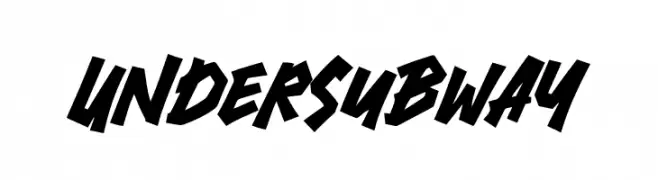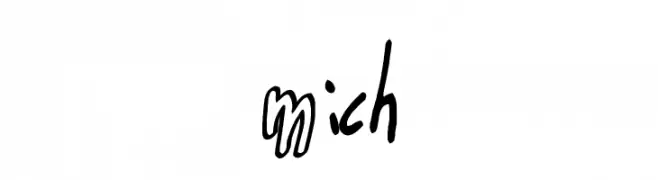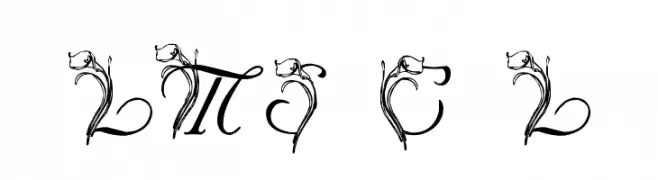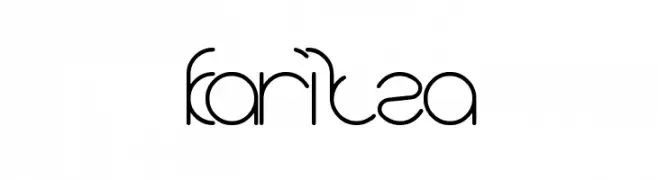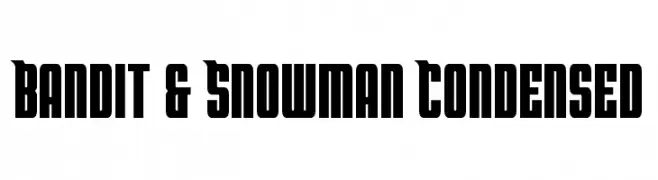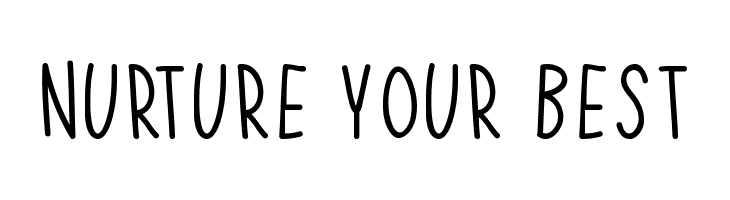
A bold, graffiti-inspired font with sharp, angular edges and a dynamic slant.
A decorative script font with elegant swirls and loops.
A bold, pixelated font inspired by classic video game graphics.
A playful, casual handwritten font with irregular, organic letterforms.
A decorative font with floral calla lily motifs integrated into each character.
A sleek, modern italic font with thin, elongated letterforms and a geometric style.
A modern, fluid font with artistic loops and curves.
A playful, rounded font with a hand-drawn, whimsical style.
A bold, condensed font with strong geometric shapes and a modern look.
A bold, italic font with sharp, angular cuts and a modern, energetic style.